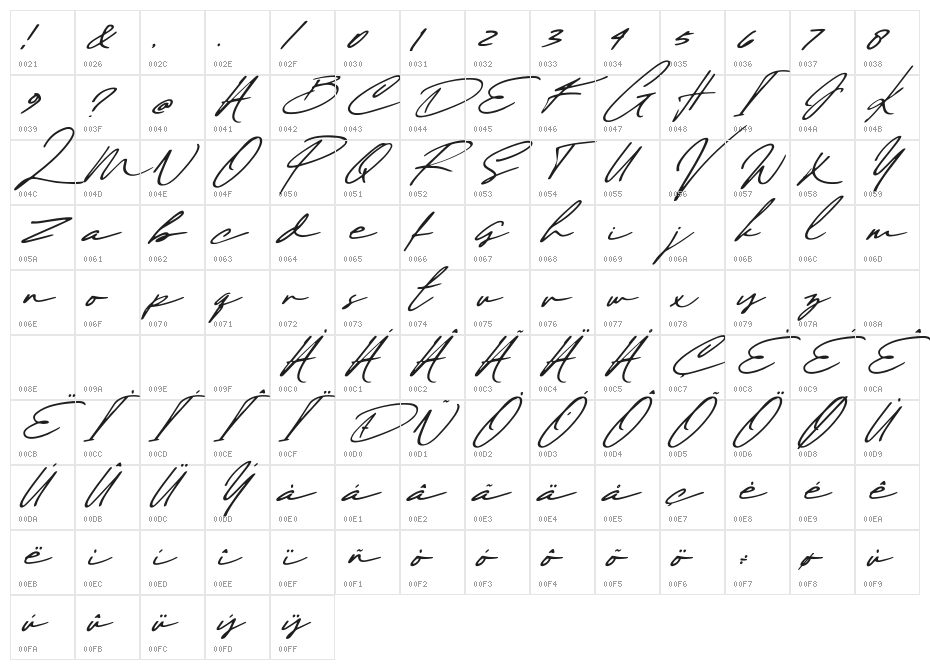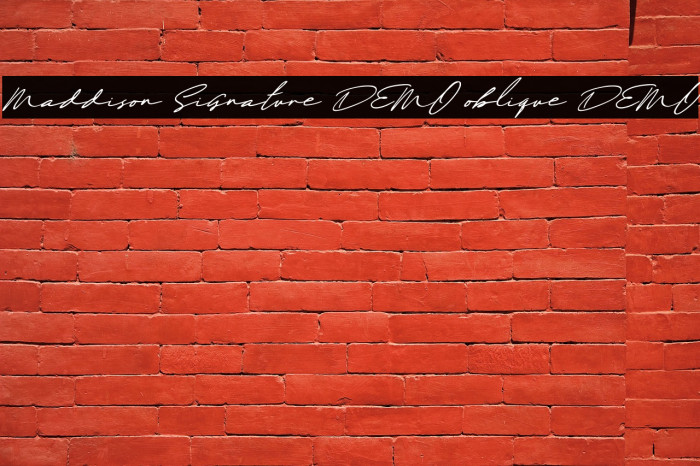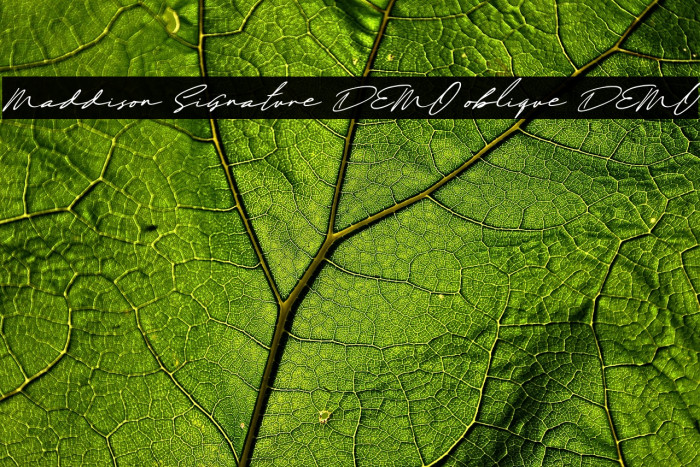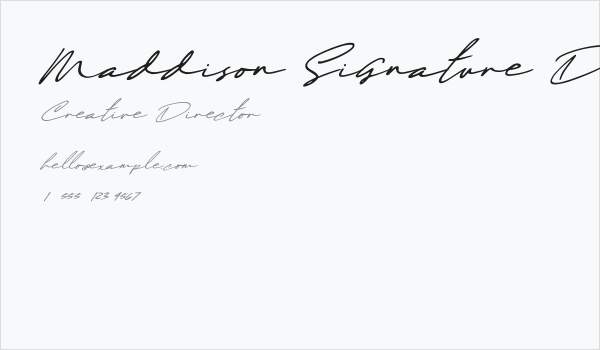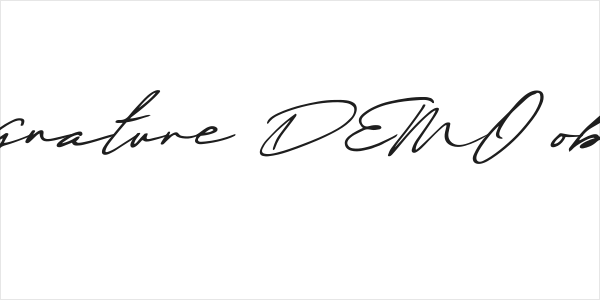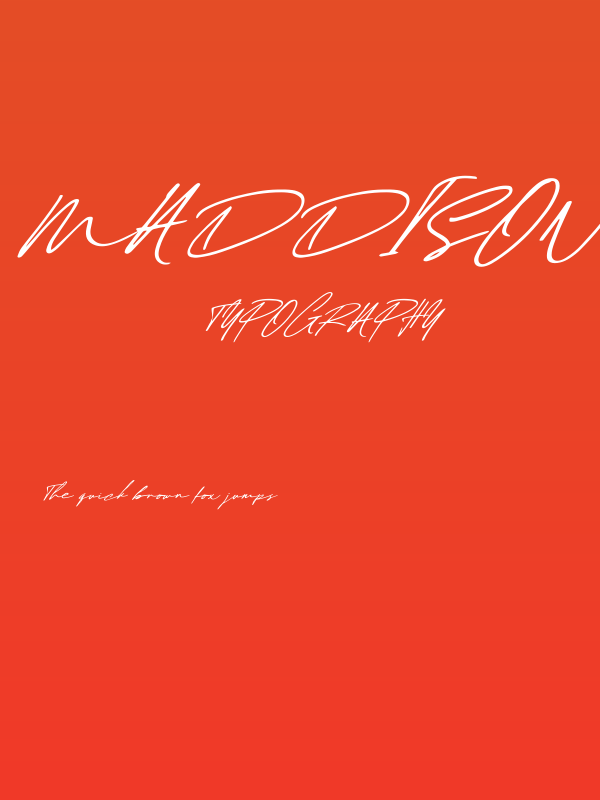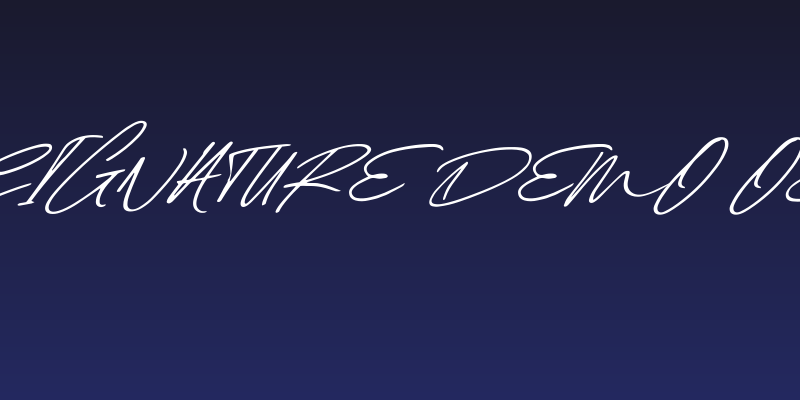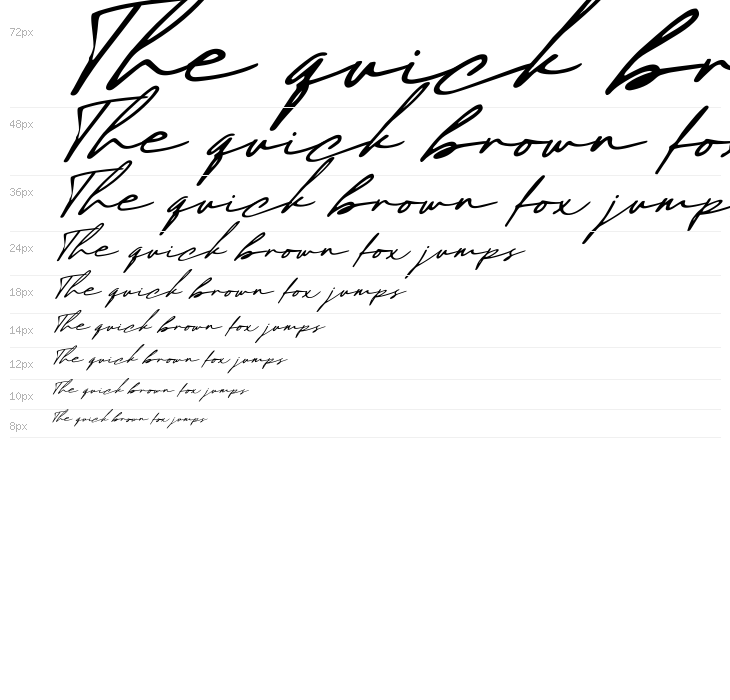
Maddison Signature DEMO oblique DEMO Font
Maddison Signature DEMO oblique DEMO Description
This font exudes a sophisticated and elegant handwritten style, characterized by its fluid and connected letterforms. The strokes are smooth and continuous, giving it a natural and personal touch. Each character flows seamlessly into the next, creating a cohesive and harmonious appearance. The uppercase letters are bold and prominent, while the lowercase letters maintain a graceful and delicate look. The numbers and special characters are crafted with the same attention to detail, ensuring consistency throughout. This font is perfect for adding a touch of elegance and personality to any design project.